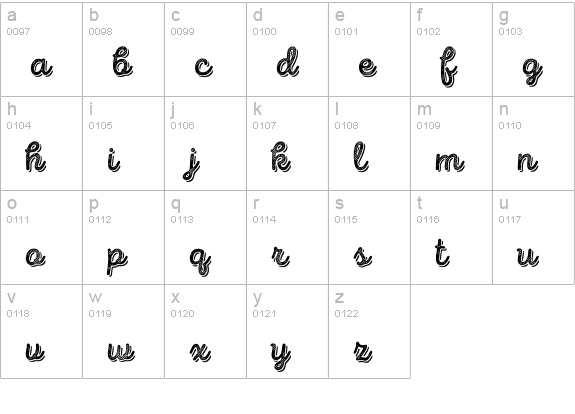
Intro Script B L Base Shade Font Details
The Intro Script B L Base Shade font is a stunning and elegant typeface that exudes sophistication and style. Its intricate details and flowing curves make it perfect for adding a touch of luxury to your design projects. This font is versatile and can be used for a wide range of applications, from branding and logos to invitations and packaging. The best part about the Intro Script B L Base Shade font is that it is completely free to download at FontsMarket.com. With just a few clicks, you can enhance your designs with this beautiful font without any cost. Don't miss out on the opportunity to elevate your projects with this exquisite typeface that is both timeless and modern. Download the Intro Script B L Base Shade font today and let your creativity shine.